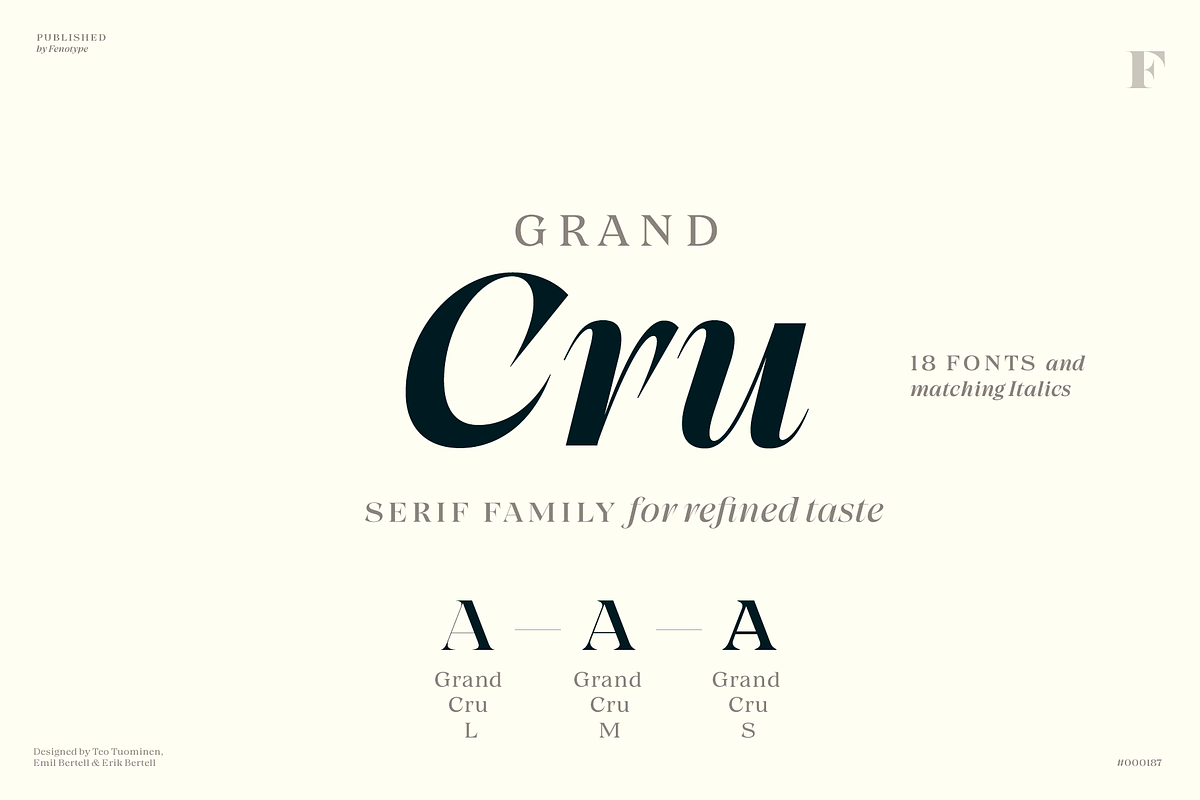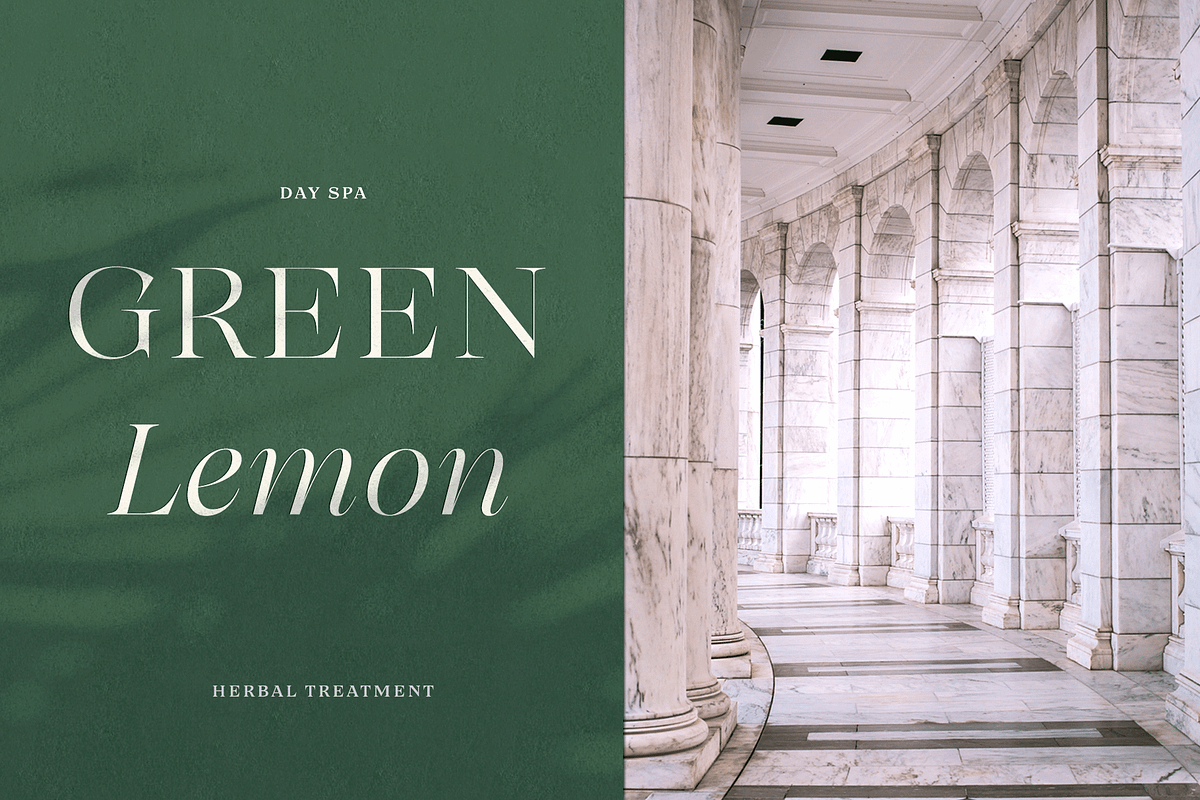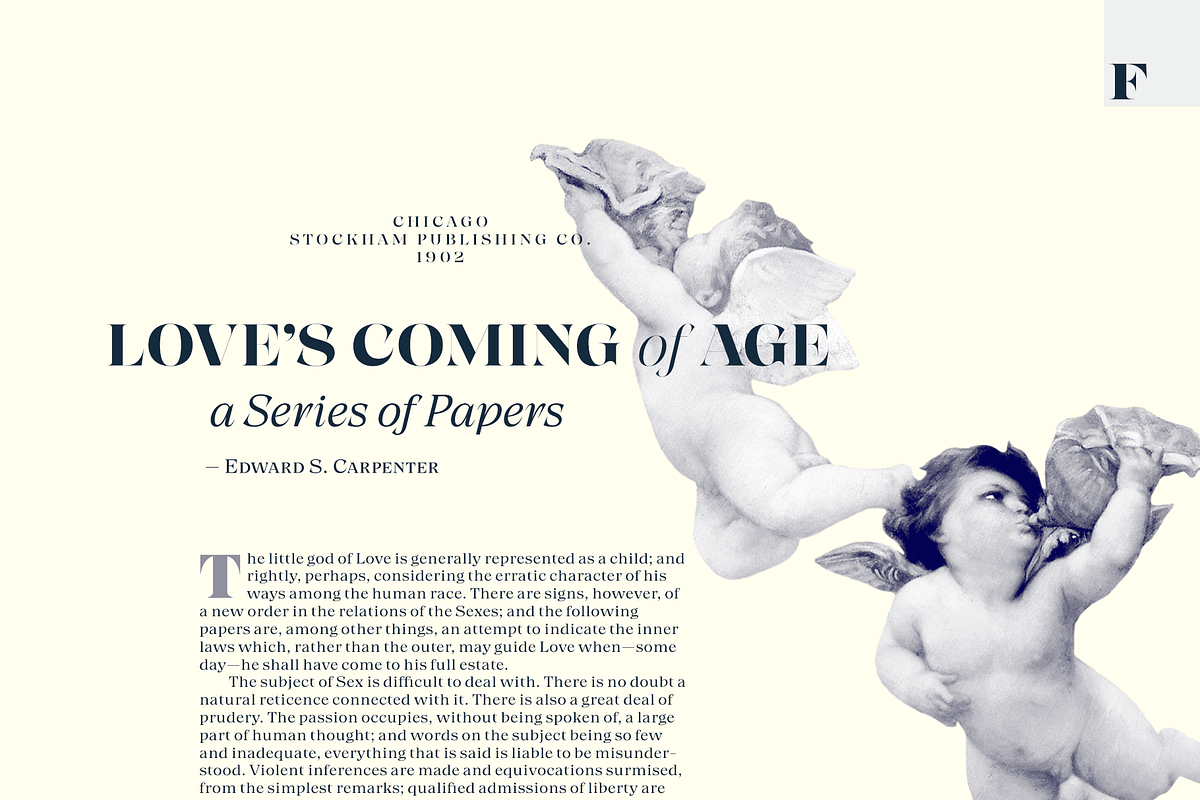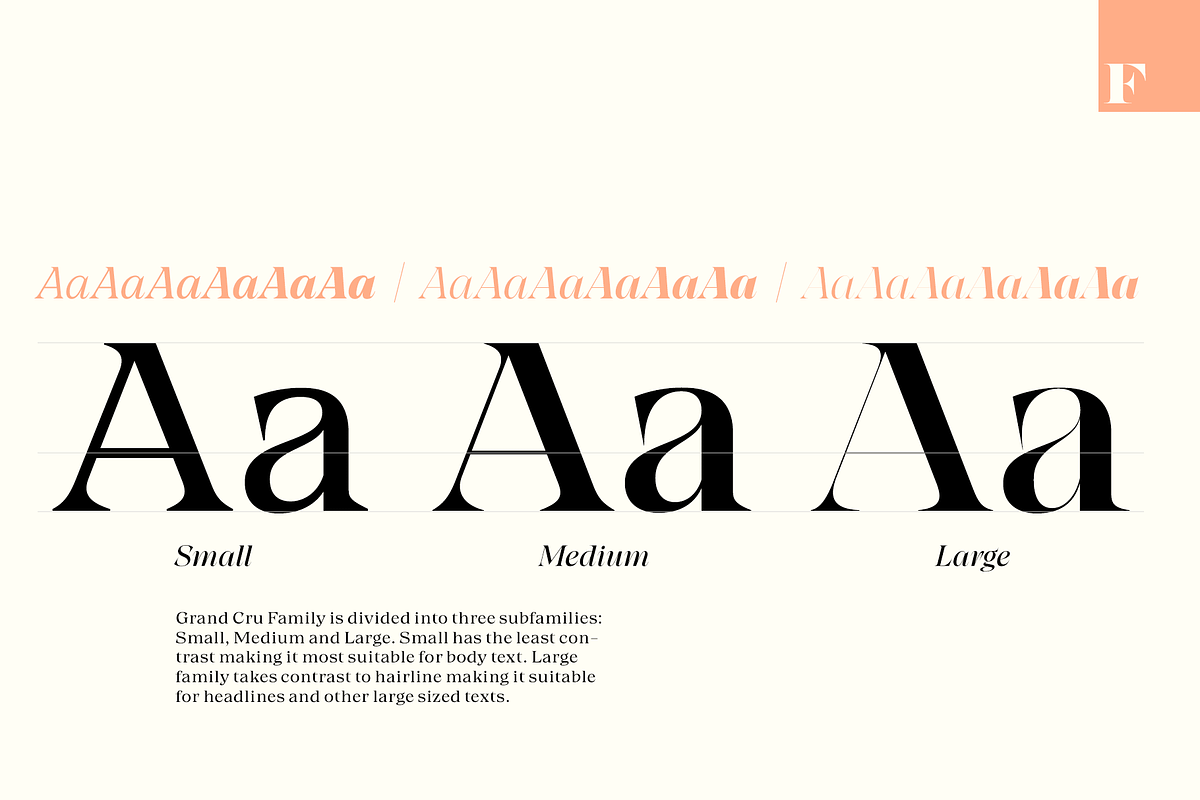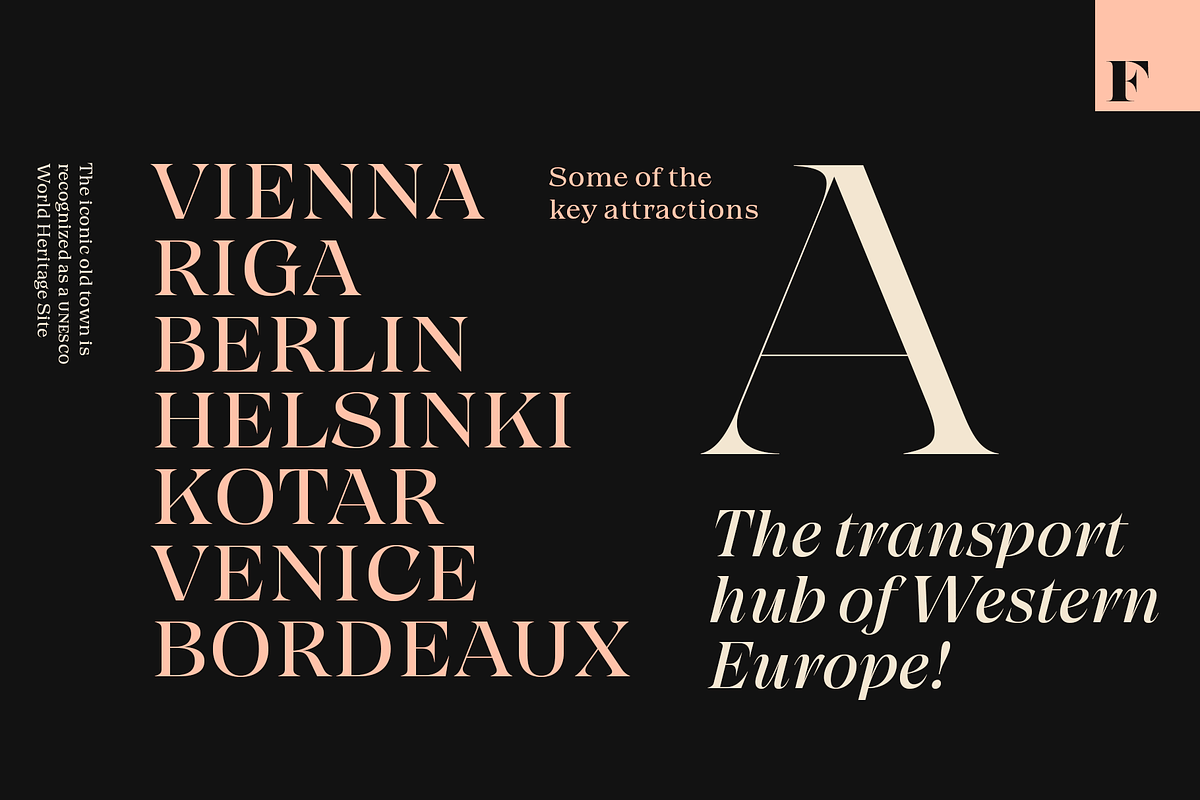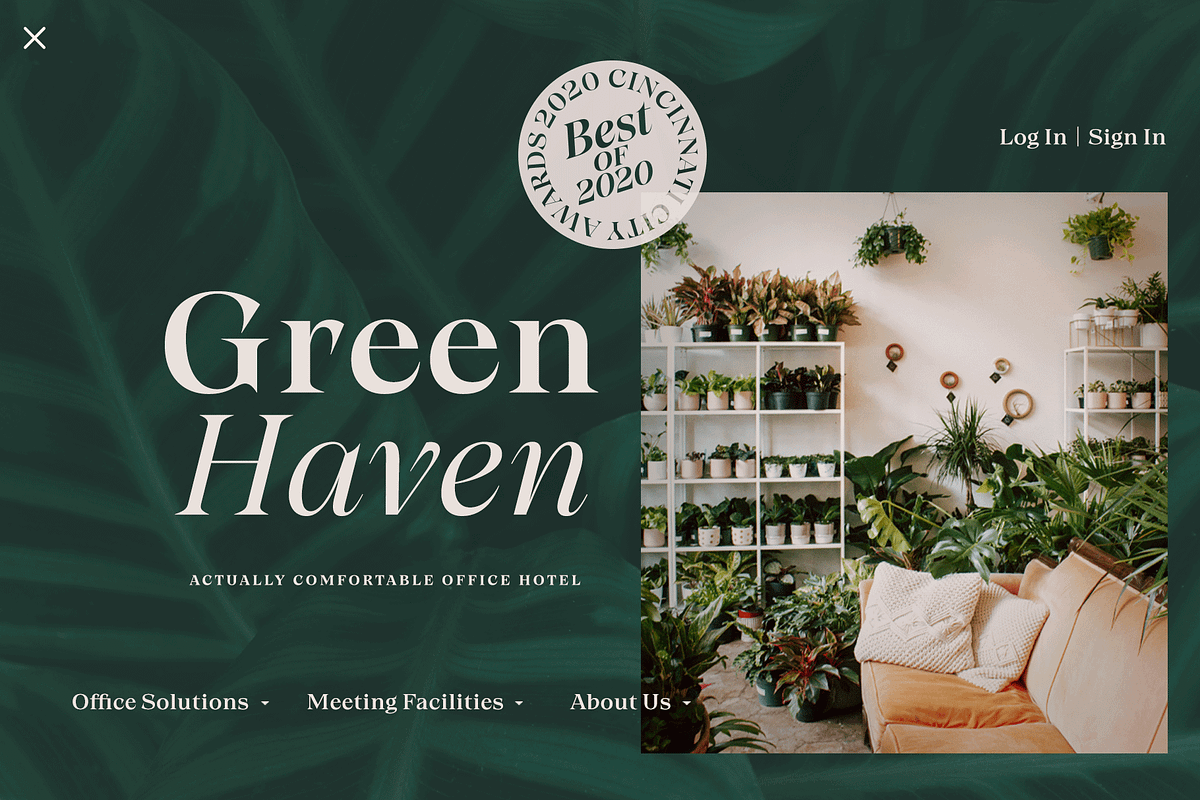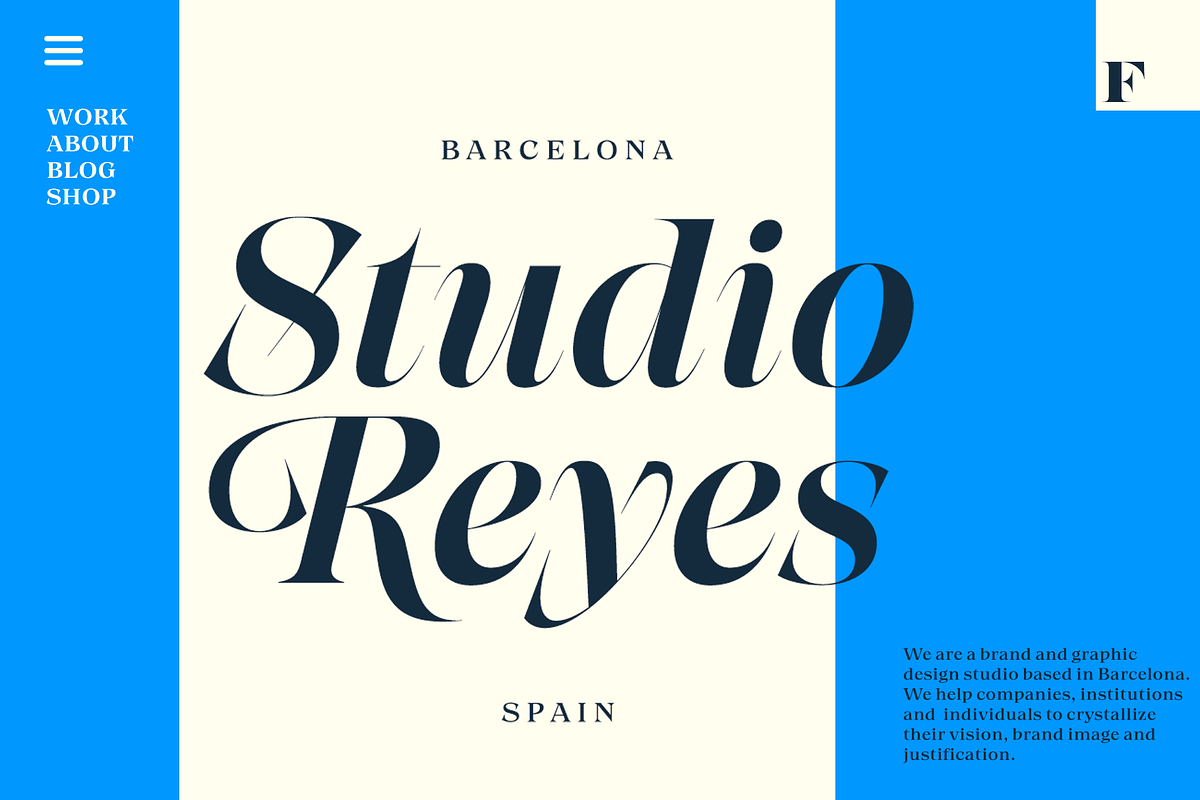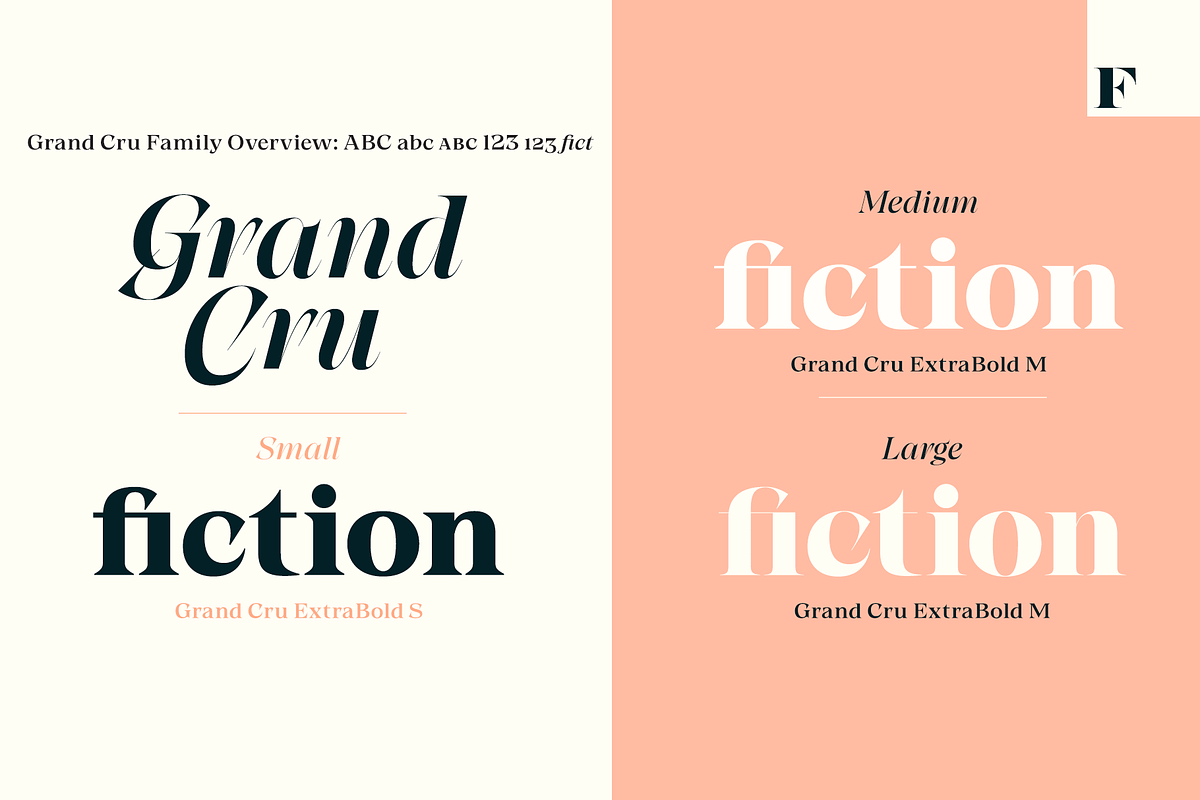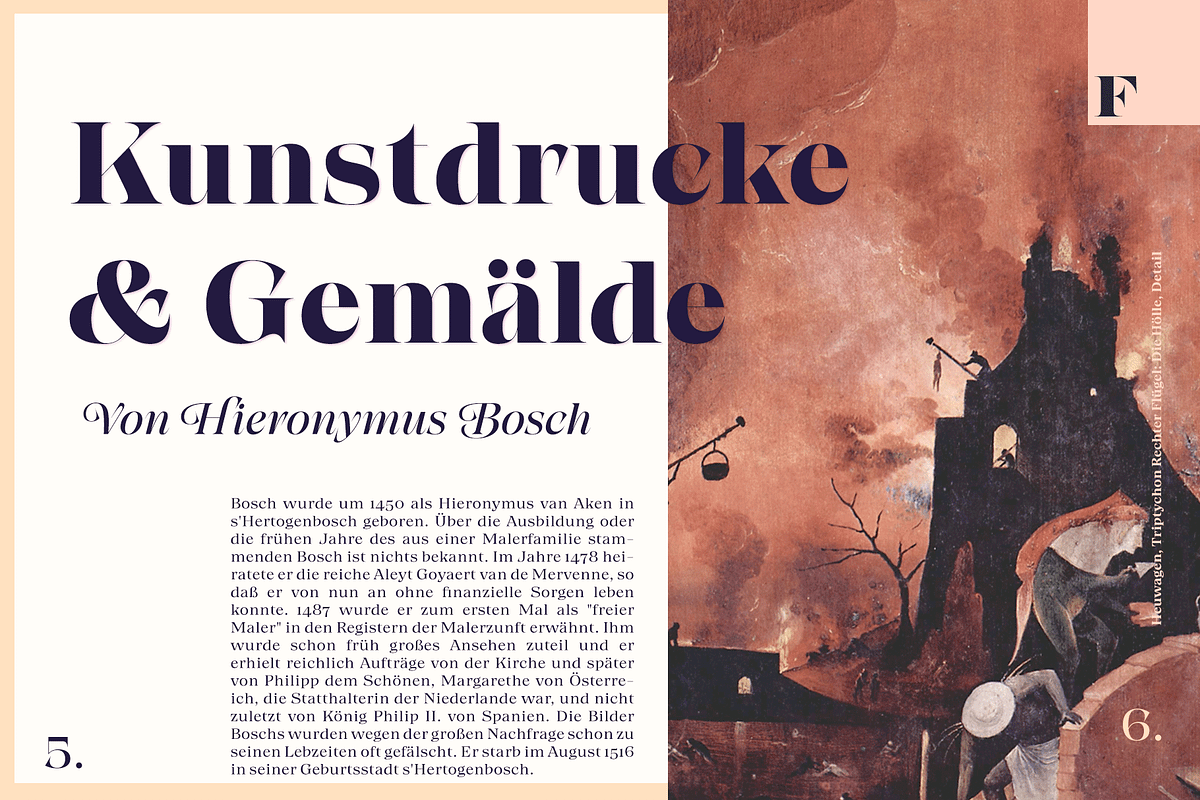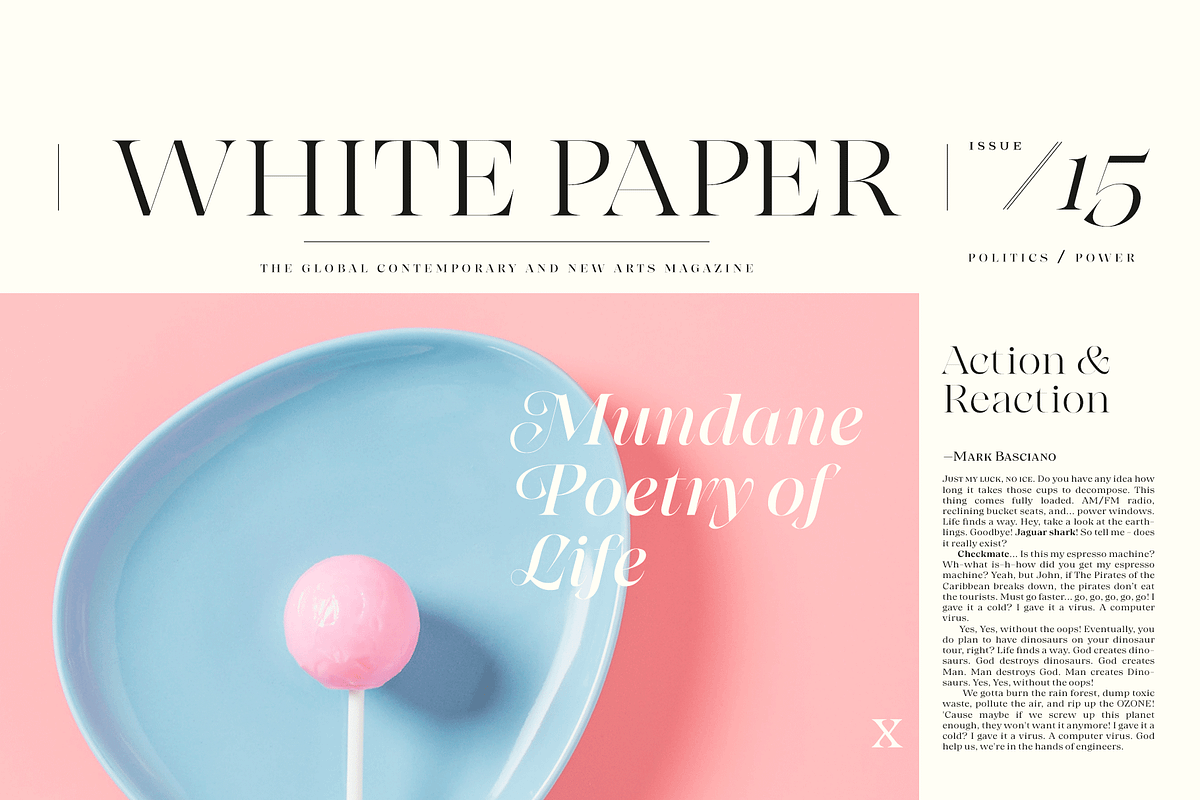
Grand Cru Superfamily
Meet Grand Cru – a new approach to serif type. The type family is divided to three groups – Small, Medium and Large – according to the amount of contrast in letterforms. Forget about those old Text/Display categories – it’s up to you how to use your typeface. While the Grand Cru Large fonts are highly decorative, the Small versions function as reliable workhorses.
All Grand Cru fonts come with thoughtful Open Type features – built-in small capitals are found in all of them, while the italics come with handsome Swash capitals. The romans are equipped with intelligent numeral styles including subscript and superscript and fractions.